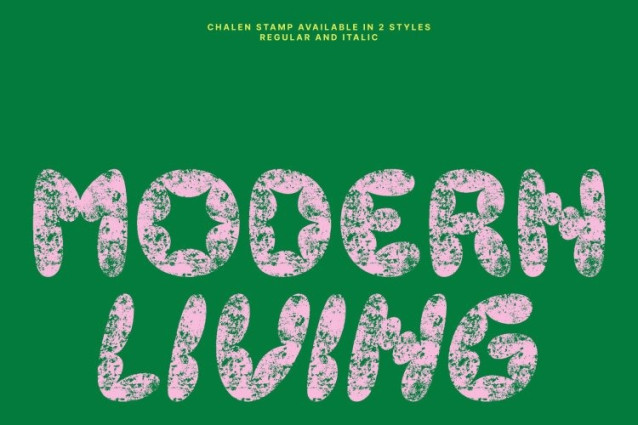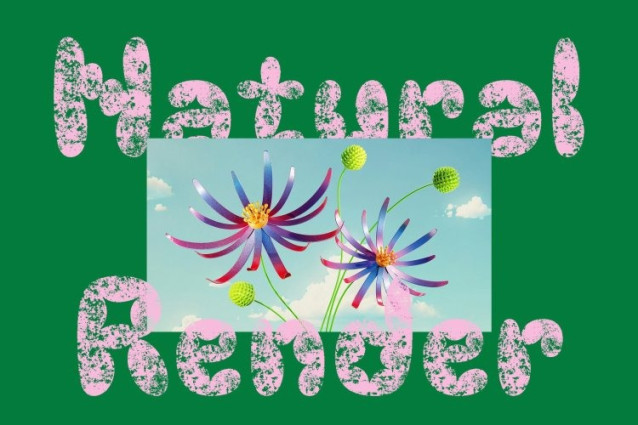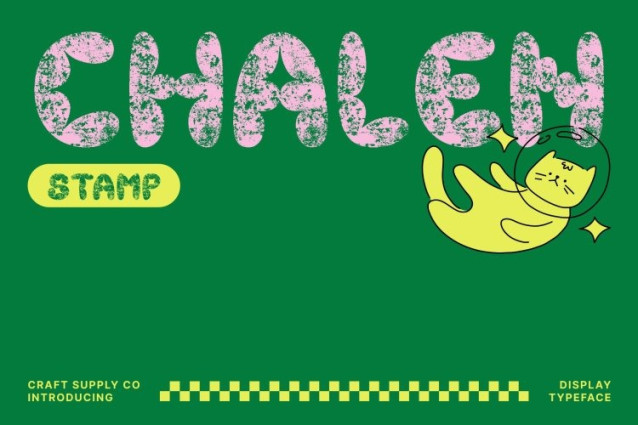
Chalen Stamp Font
Chalen Stamp Font This is a bubble-inspired display font designed to radiate playfulness and charm. Its rounded, bouncy letterforms create a cute and energetic impression, making every design feel lively, friendly, and full of character. Whether you’re crafting posters, branding, or fun merchandise.
Expressive Stamp Texture for a Unique Handmade Feel
What sets apart is its bold, expressive stamp texture. This handcrafted finish adds depth, personality, and a raw artistic touch to each letter. The textured details make the font stand out, giving your design a distinctive and imperfectly-perfect appeal.
Balanced Playfulness with Refined Forms
Even with its fun and playful bubble shapes, maintains refined structure and readability. Every curve is crafted to strike the right balance between cute aesthetics and polished form, making it suitable for both youthful designs and more stylized, creative branding. This balance allows your work to feel fun without losing its professional edge.
Perfect for Fun Branding, and Creative Display
This is a versatile choice for designers who want to deliver playful energy with an artistic twist. From children’s book covers and playful logos to greeting cards, social media visuals, and event posters, this font adds instant charm. Its bubble shapes and expressive stamp texture ensure your message pops with warmth, creativity, and lively character.